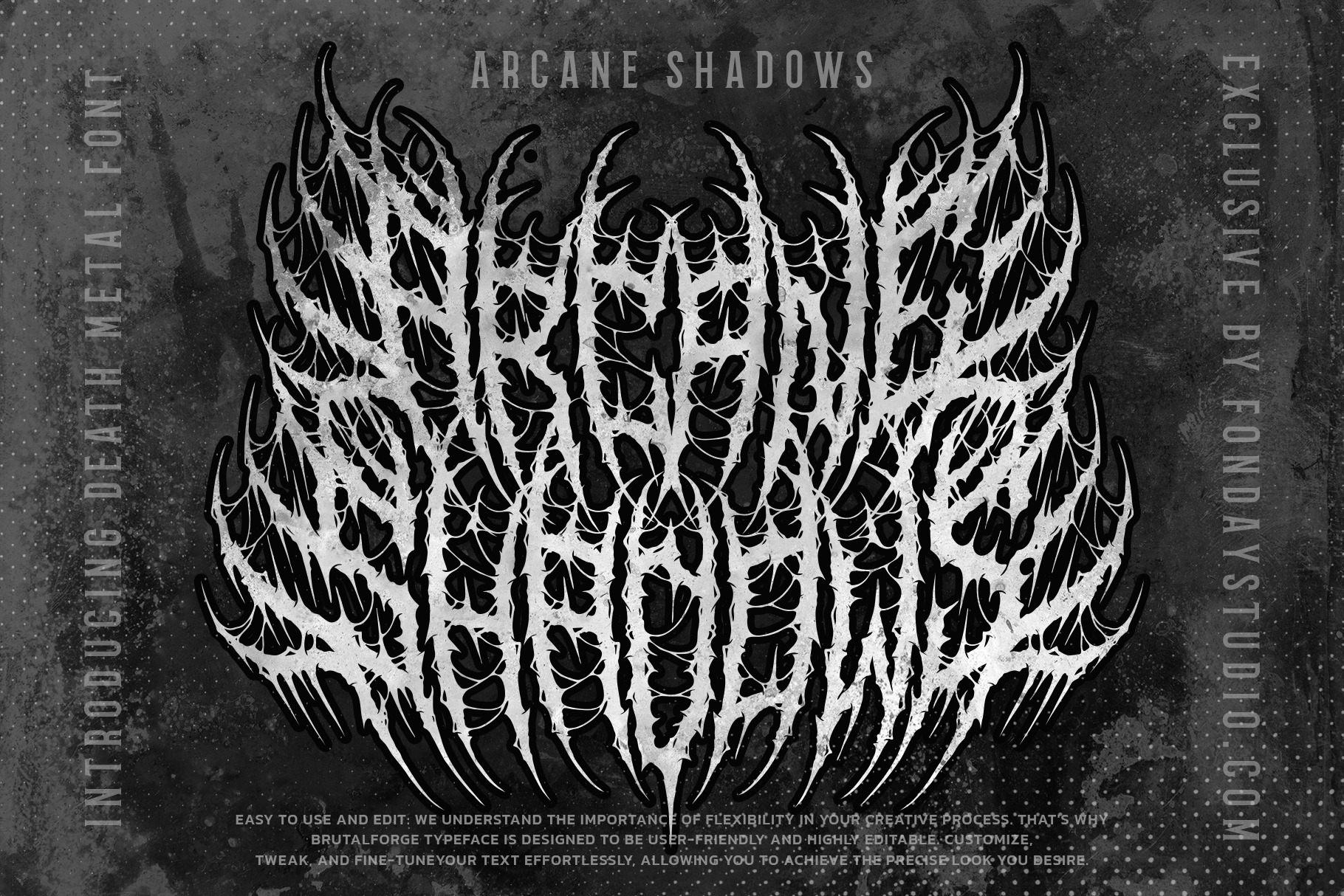
Arcane Shadows Death Metal Font
🤘 Introducing Arcane Shadows Death Metal Font: Unleash the Obsidian Power of Your Designs! 🤘
Step into the shadows with the meticulously crafted "Arcane Shadows Death Metal Font." This isn't just a font; it's a symphony of detail, uncompromising quality, and exclusivity.
🔥 Obsidian Precision: Every line in Arcane Shadows is etched with the raw energy and razor-sharp precision demanded by the metal genre, setting new standards for high-quality design.
🤘 A Legion of Alternates: Immerse yourself in a legion of alternate characters that empower your designs with an occult edge, embodying the true essence of arcane darkness.
✏️ Effortless Mastery: Arcane Shadows makes design modification effortless. From posters and logos to t-shirt brands and album covers, wield the font with ease to manifest your dark vision.
🖤 Versatile Across All Metal Realms: Whether it's death metal, black metal, or any subgenre, Arcane Shadows seamlessly adapts, shrouding your designs with an aura of unparalleled mystery.
🔒 An Exclusive Design Experience: This font isn't just a tool; it's your exclusive key to unlocking a realm of creativity, cloaked in the mystique of Arcane Shadows.
🔥 Evoke the Shadows: Embrace the darkness and redefine your metal design aesthetic with Arcane Shadows Death Metal Font.